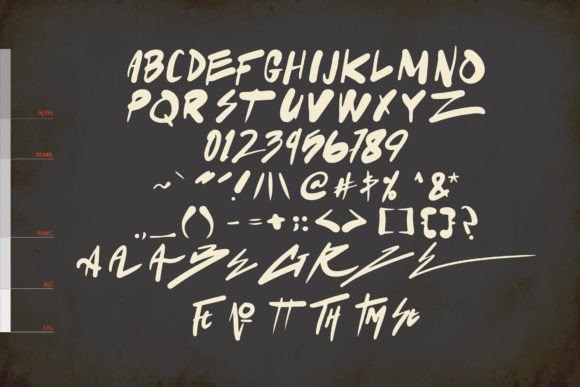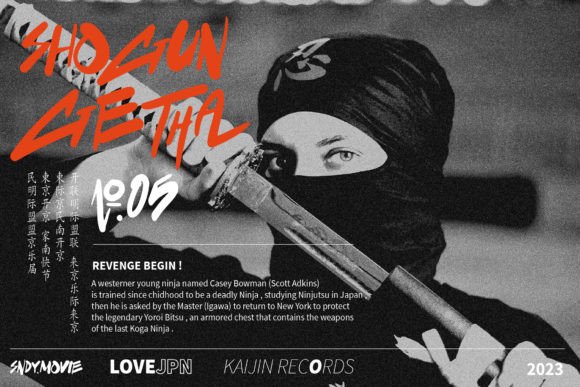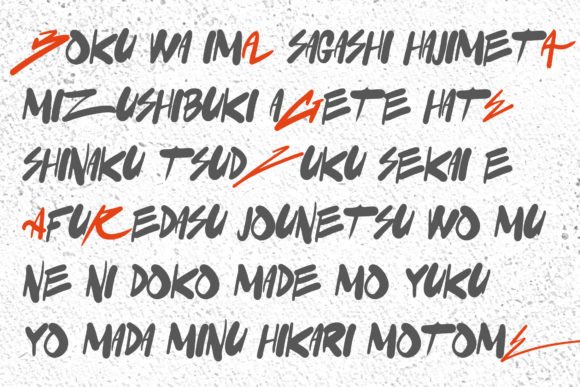
Introduction to Nukami Font Font
Fonts play a crucial role in design, and the Nukami Font font is a typeface that brings both character and versatility to any project. Whether you’re working on a branding project, a website, or a print design, the Nukami Font font offers a unique style that can elevate your work.
| 📌 Font Name | Nukami Font |
| 👤 Author | Sundaylab |
Nukami is a display font that can help display messages in the designs you create.
With its Brush character, it is suitable for you to use on posters, flyers, magazine covers, books, vinyl, CDs, and many other media This font is PUA encoded which means you can access all of the amazing glyphs and ligatures with ease.
Key Features of Nukami Font Font
Why Choose Nukami Font Font?
The Nukami Font font is more than just a typeface – it’s a design tool that helps you communicate your message with style and clarity. Its unique character set and versatile design make it suitable for a wide range of applications, from elegant invitations to bold headlines.
With its carefully crafted letterforms and balanced proportions, the Nukami Font font ensures readability and visual appeal across all mediums.
What makes Nukami Font font special?
The Nukami Font font stands out with its unique design, exceptional readability, and versatility across various design applications.